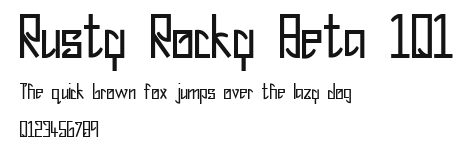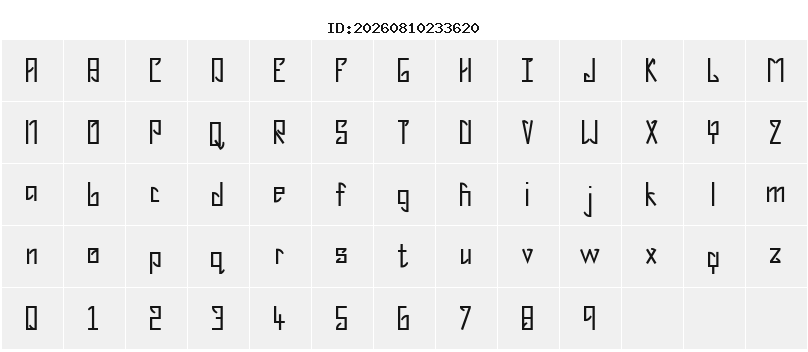
Rusty Rocky Beta 101 Preview
• Font Name: Rusty Rocky Beta 101
About Rusty Rocky Beta 101.ttf
Rusty Rocky Beta 101.ttf is a modern, elegant sans-serif font designed for ultimate readability and visual harmony. Perfect for branding, headlines, web design, and print materials.